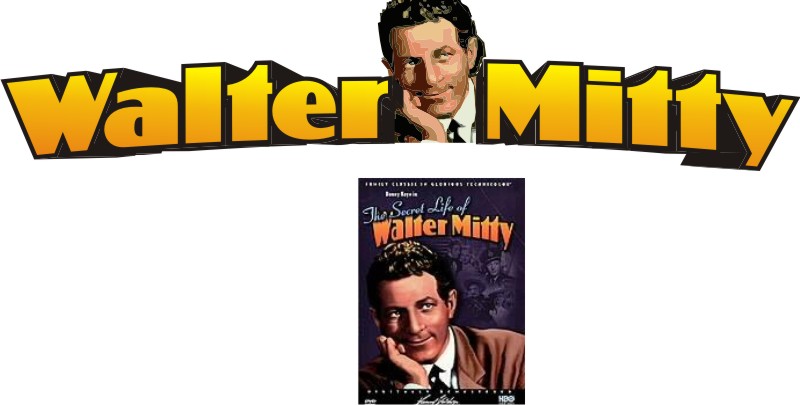
Font????
Shovelhead
I used this font years age....KALLOS came to mind but
Linotype offers a serif times romanish font....
anything close???
Cool Font, BTW.
Shovelhead
Guy called me today for a boat graphic..........
says he's heard that I'm the best in town.....................left a message
that his boat name is walter mitty...........
other than the flat top on old Danny Kaye that I have to fix (COREL CX trace is the SH^%) ...I think I came close in about 2 1/2 minutes of design time.
Nice call on the font, too.